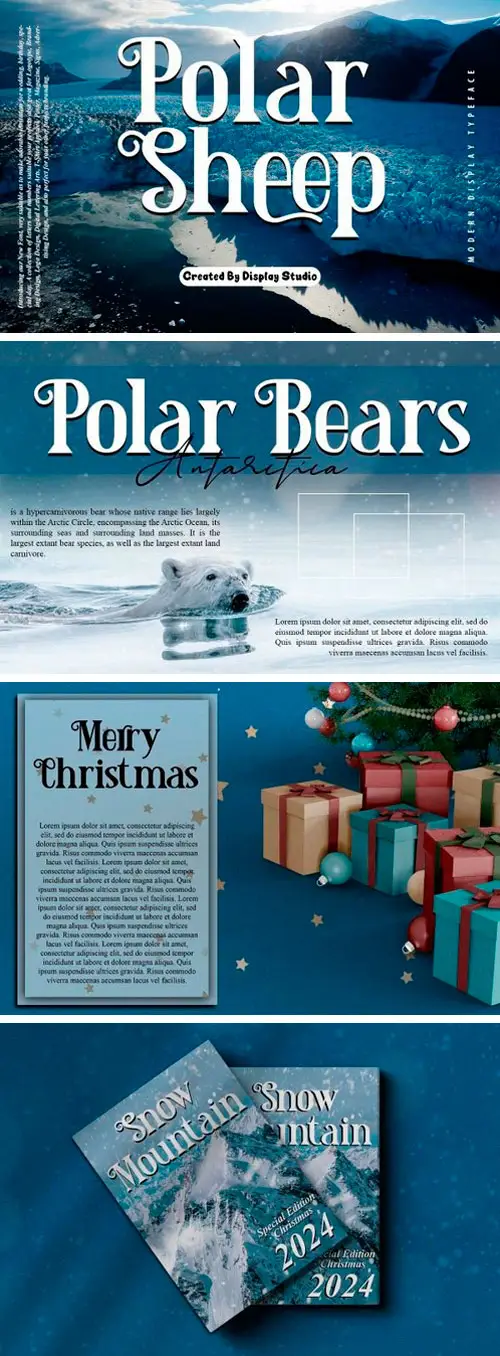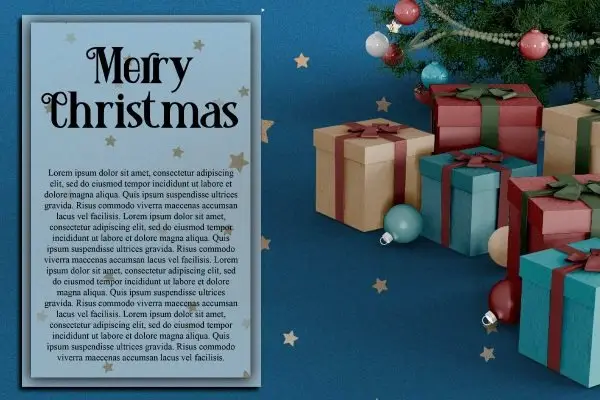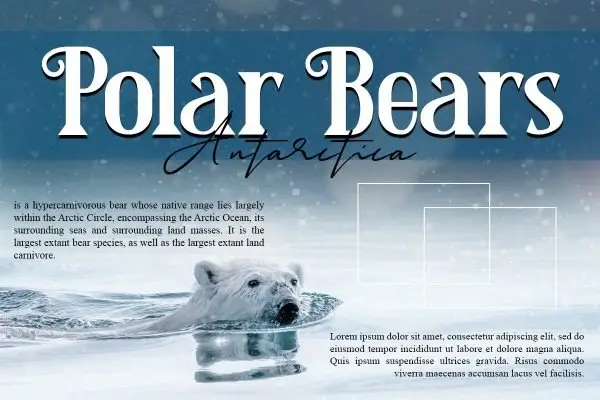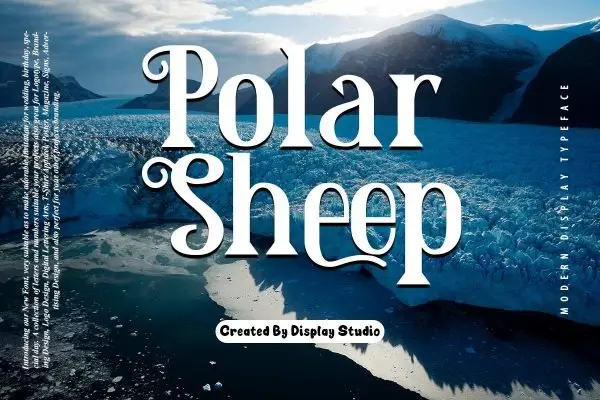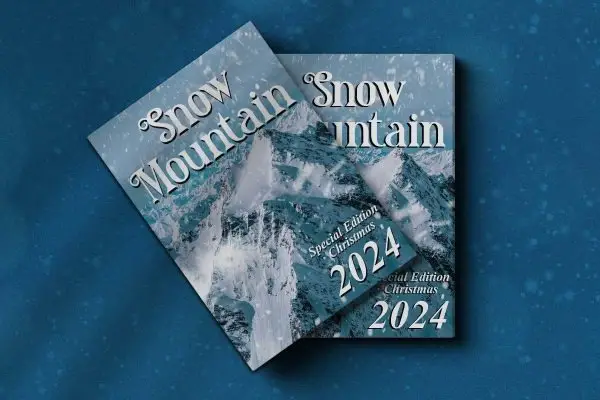
Polar Sheep Serif Font
The Polar Sheep Serif Font is a charming typeface that combines elegance with a playful touch. Perfect for a variety of design projects, this font features a classic serif style that enhances readability while adding a unique character to your text.
• Stylish serif design
This font is ideal for branding, logos, web design, print materials, and user interfaces, providing a sophisticated yet approachable feel to your projects.